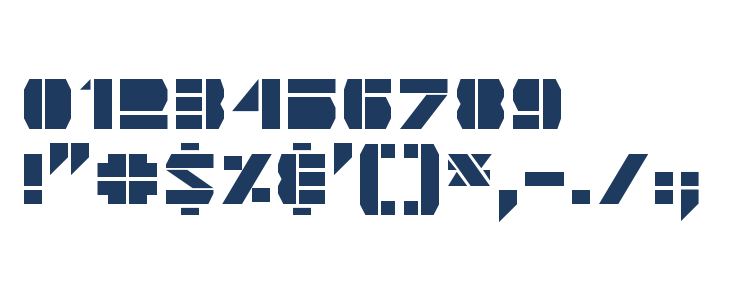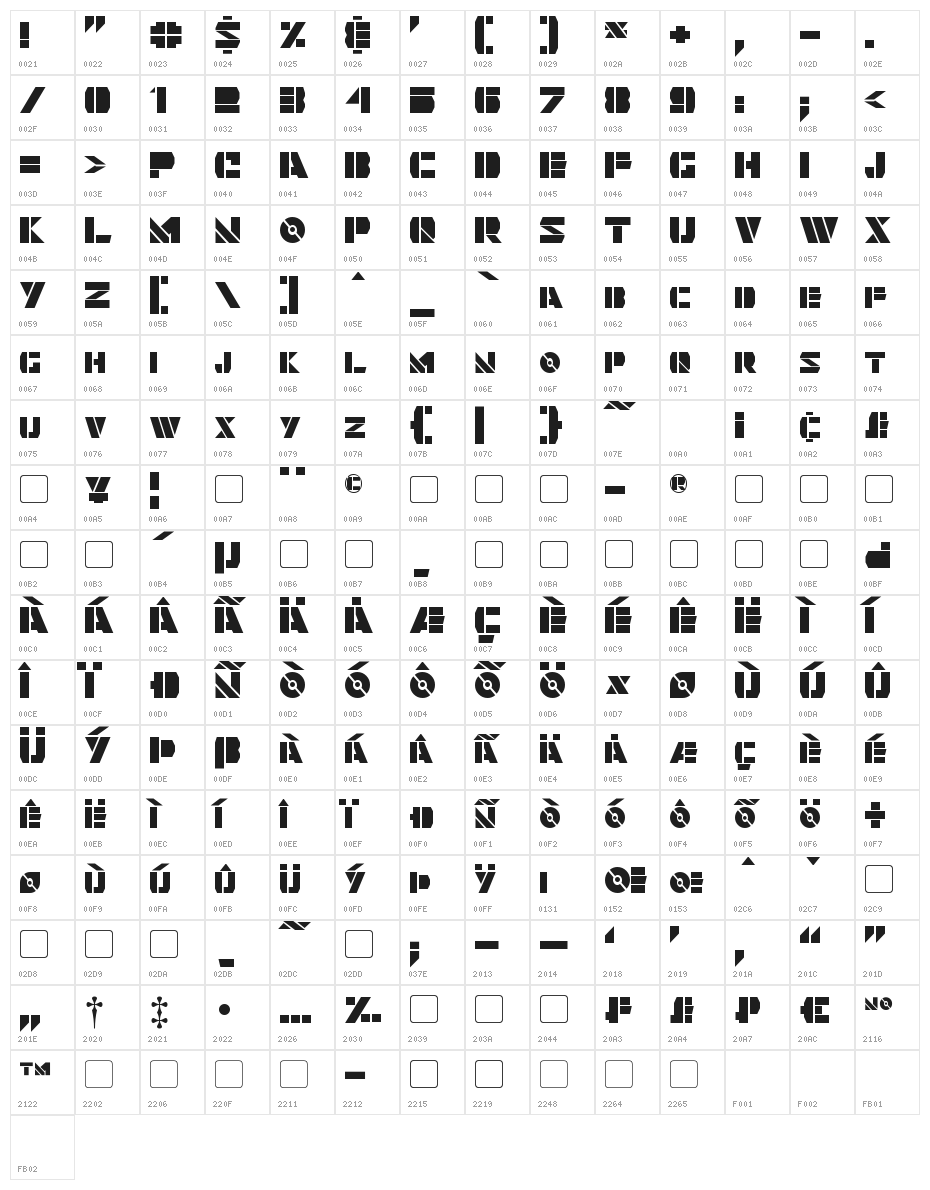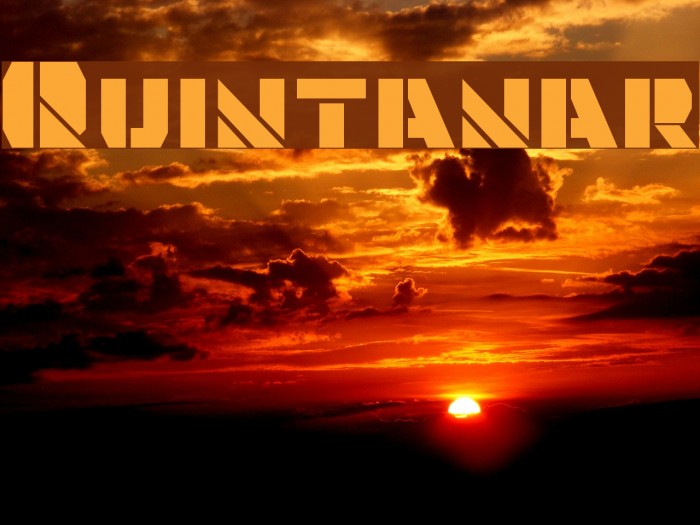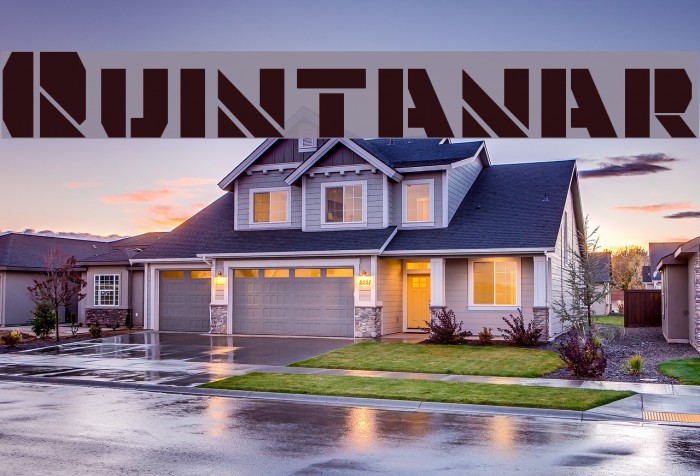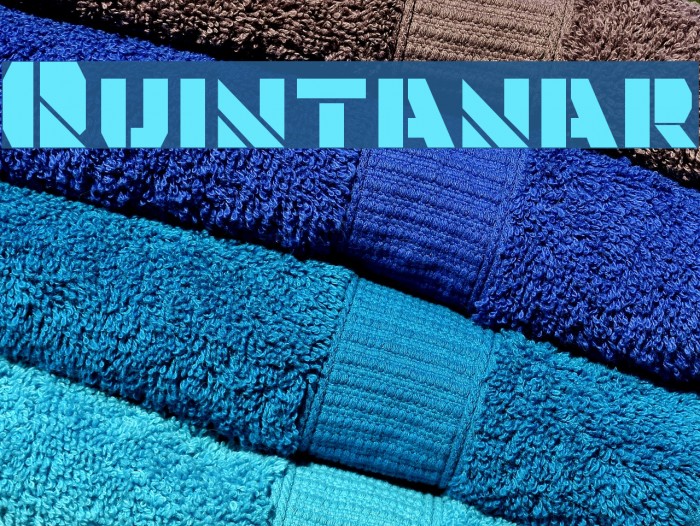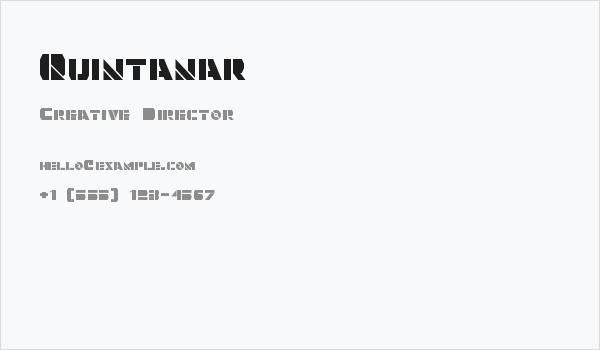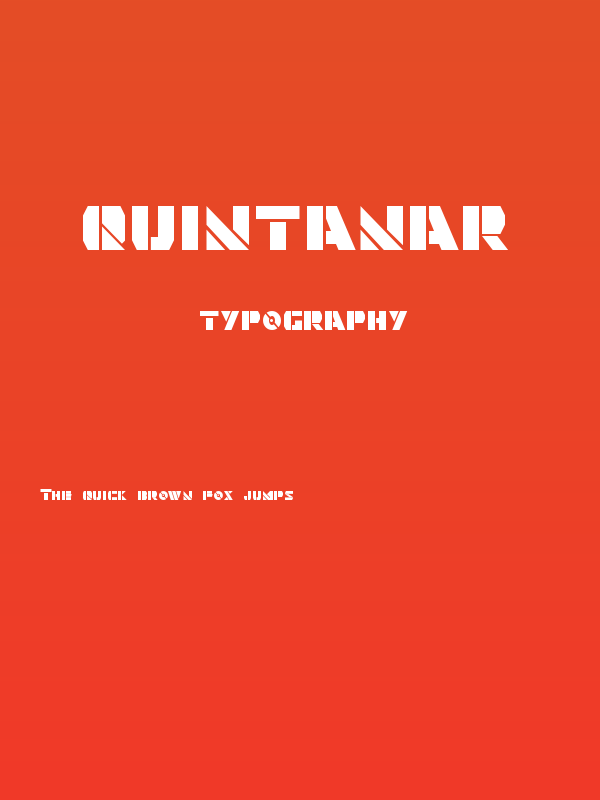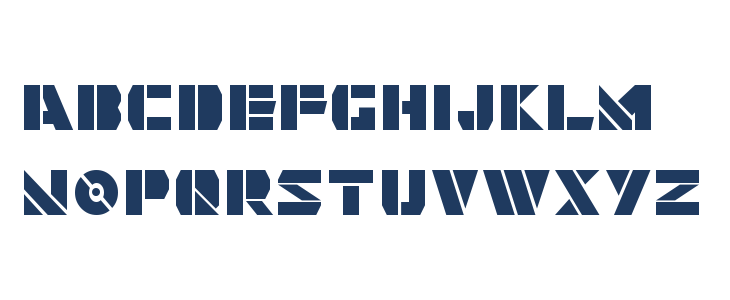
Quintanar Font
Quintanar Description
This font features a bold and geometric design, characterized by its blocky and angular shapes. Each character is constructed with sharp edges and a stencil-like appearance, giving it a modern and industrial feel. The uppercase letters are particularly striking, with their solid forms and minimal negative space. The numerals and special characters maintain this cohesive style, ensuring consistency across all glyphs. The font's unique aesthetic makes it stand out, ideal for projects that require a strong visual impact.
| Proposed Projects | Ideal for branding, posters, headlines, and any design requiring a bold statement. |